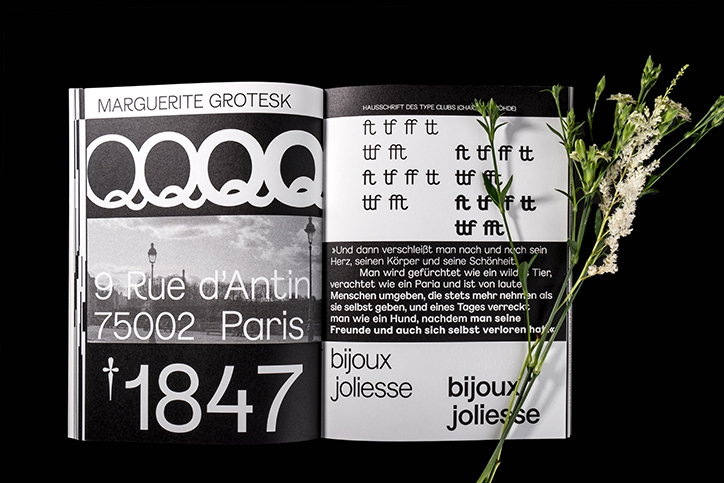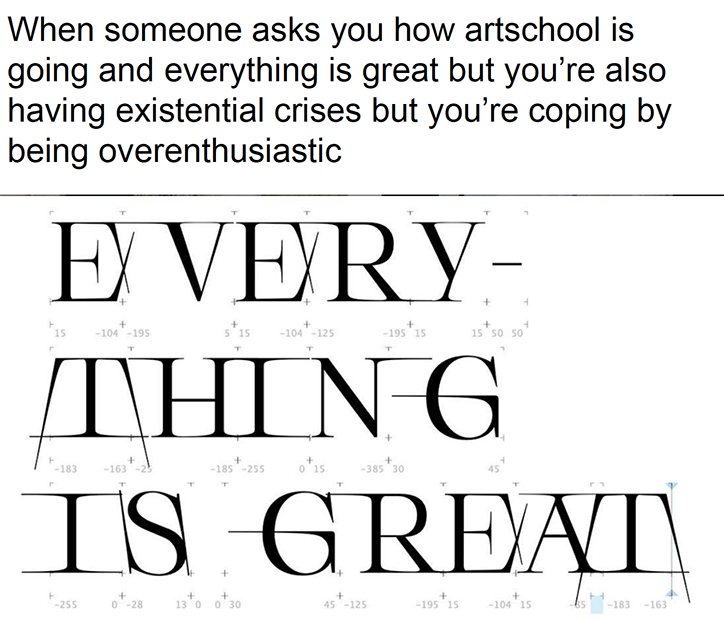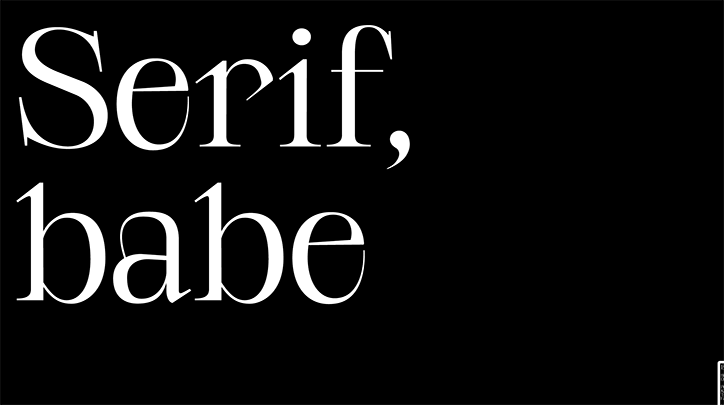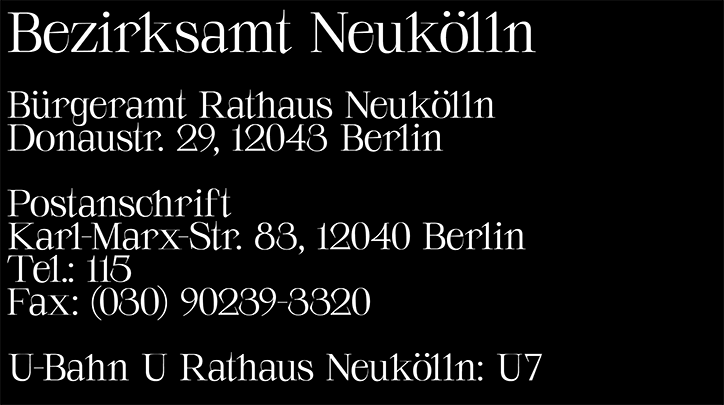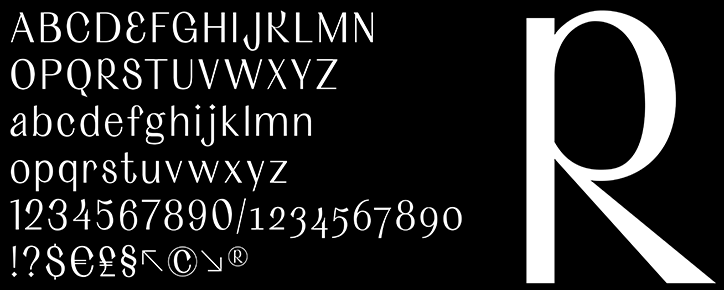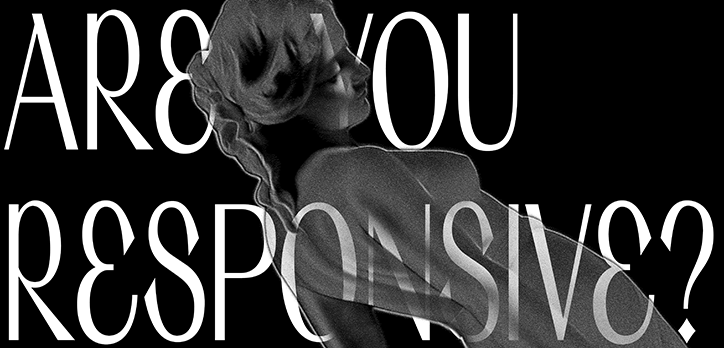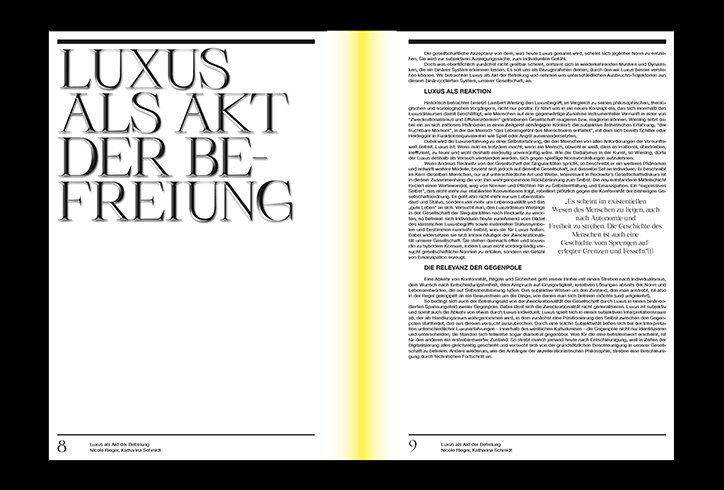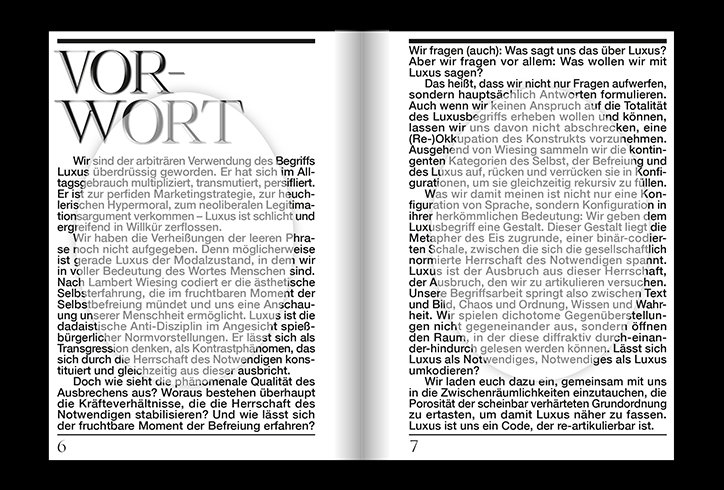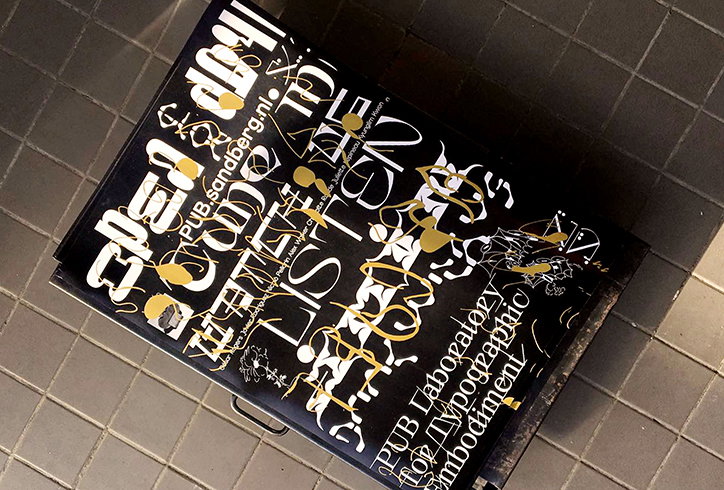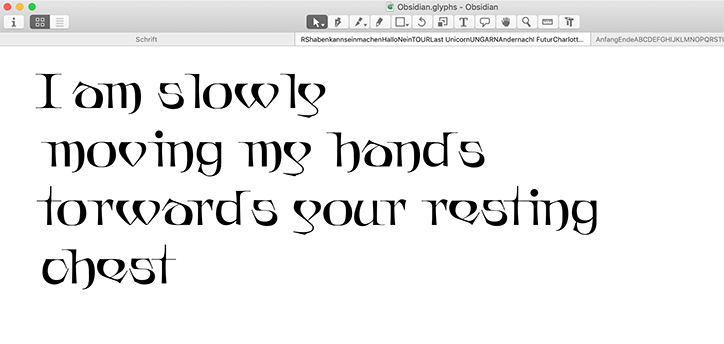
Charlotte Rohde asks “what do typefaces have to say beyond the words they spell?”
“All my typefaces have feminist concepts or thoughts woven into them," says the type and graphic designer Charlotte Rohde. Based out of Amsterdam but having studied in Düsseldorf where the typography is usually very bold – “almost brutal but playful at the same time” – Charlotte’s designs visibly encapsulate the place where she studied while hinting at feminism which adds an emotional value to the text.
While studying retail design at university with the hopes of becoming a scenographer (otherwise known as a production designer), Charlotte unexpectedly fell in love with typography in her fifth semester and focused on the discipline from then on. “I wanted to explore the possibilities within such a predefined system and continued to delve further into it," she tells It’s Nice That, "so my interests in typography happened quite naturally.”
Working with typography on an emotional basis, Charlotte’s interests lie in the manipulation of form and language through type. As a youngster, she saw herself becoming a curator and a writer which have fed into the surrounding context of her type designs over time. For her second typeface Calyces, Charlotte wanted to create a typeface that would “read like an opera – sharp, elegant with a hint of pathos.” Once it was realised, she decided to give it away for free if the project had feminist intentions. “This is one way of feeling like I am contributing and showing solidarity to a worthy cause”, adds the designer, “I realised that design does not necessarily have to have a feminist concept to do feminist actions.”
Charlotte Rohde: Serifbabe
Similarly designed with bags of intuition, Charlotte’s typeface Serifbabe started off as an experiment with serifs. “Some time ago I was trying to find out how serifs worked, nothing special,” explains Charlotte. A year later, she was suddenly hit with inspiration and knew exactly how to solve the work-in-progress design. “I worked maniacally for a few weeks and got really excited about it because it expressed a feeling within me. The name was just a working title as well, but when someone asked to use it and I sent it out, the name stuck.”
Currently expanding on the emotional concept of Serifbabe at Amsterdam’s Sandberg Instituut, Charlotte is investigating how to invoke emotion through designed letterforms. “The process of designing Serifbabe felt so genuine and personal, I wanted to explore this emotionality," she adds on the matter. Kicking off the project by experimenting with abstract objects and asking whether these objects can successfully translate an emotion, Charlotte continues to look into the communication of emotion. Fundamentally she’s pondering, “What do typefaces have to say beyond the words they spell?” Working with poetry and collaborating with the artist Octave Rimbert-Rivière, Charlotte intends to write a thesis about the emotionality of typeface and how they can be seen, and used as visual voices.
Charlotte Rohde: Serifbabe
Charlotte Rohde: Calyces
Charlotte Rohde: Serifbabe, luxury
Charlotte Rohde: Pub Type